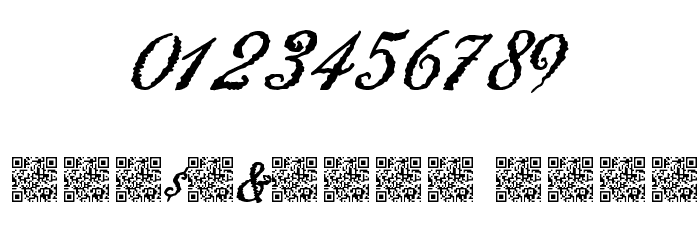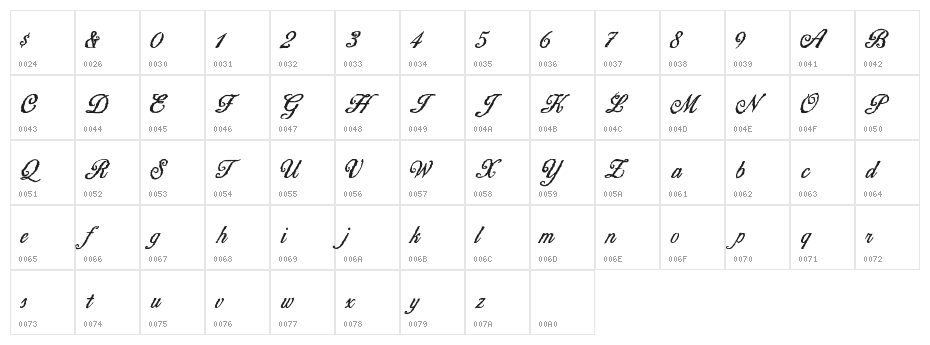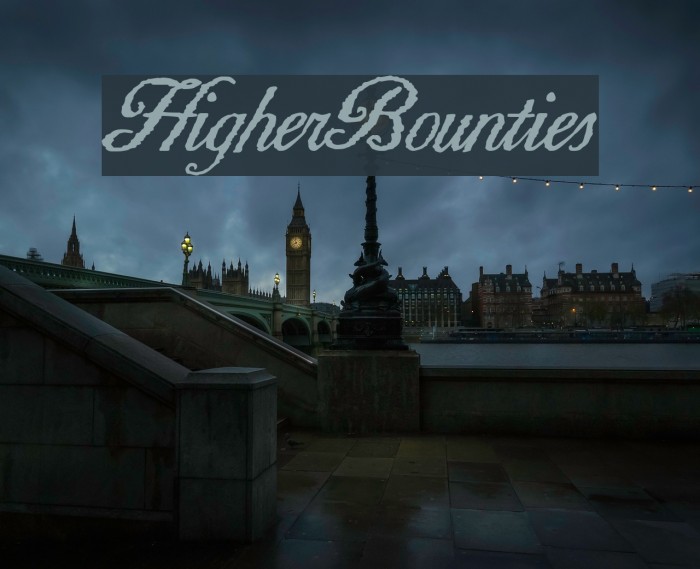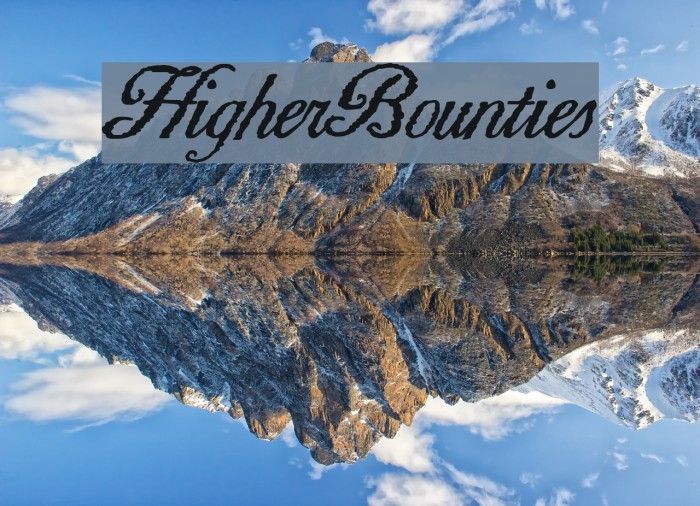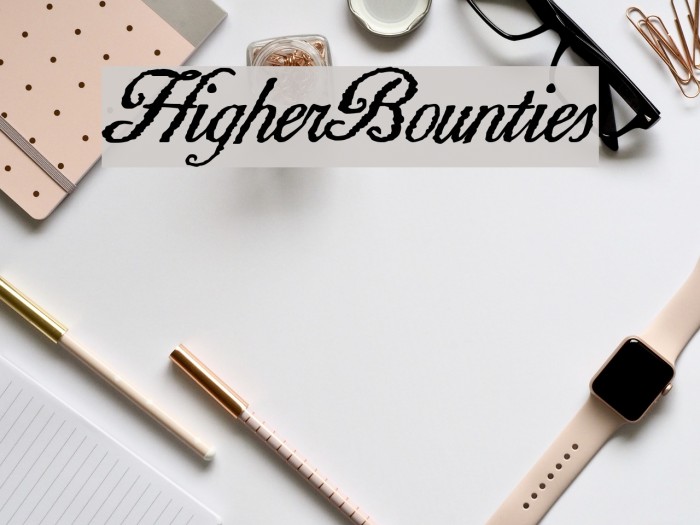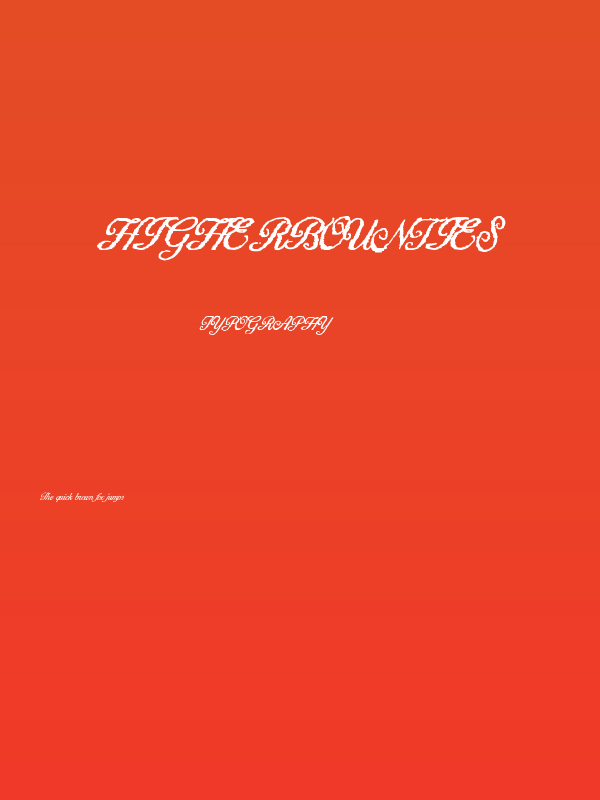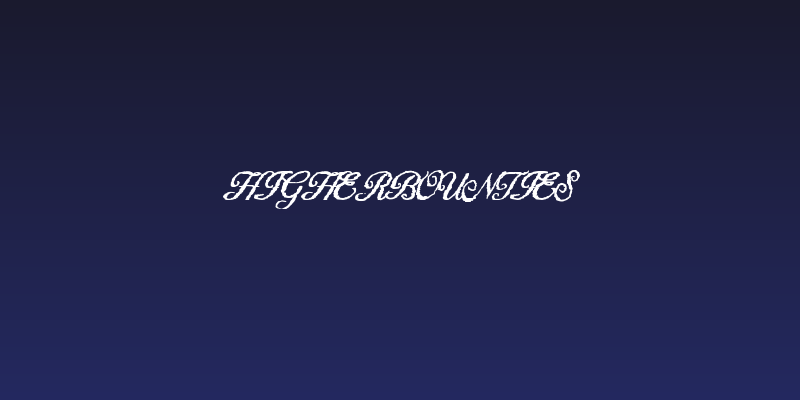
HigherBounties Font
HigherBounties Description
This font exudes a classic and elegant script style, characterized by its flowing and interconnected letterforms. The uppercase letters are ornate with intricate loops and flourishes, giving a sense of sophistication and formality. The lowercase letters maintain a consistent style, with smooth curves and a slight slant that enhances the cursive appearance. The numerals are designed to match the overall aesthetic, featuring similar decorative elements. Special characters like $, ?, &, %, !, #, *, = are also crafted with the same attention to detail, ensuring a cohesive look across all glyphs.